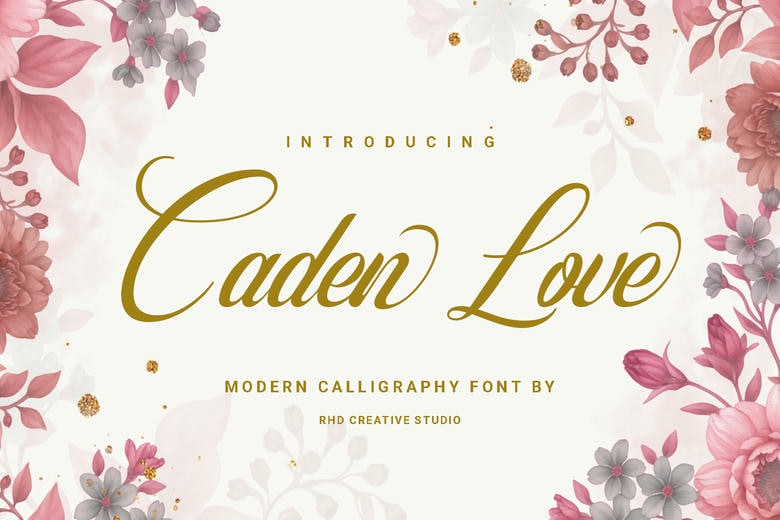
Caden Love Font
Caden Love is a contemporary calligraphy font which is incorporated with grace and expressive artistry. It has a flowing script style with elegant curves, high contrast lines and smooth thin-thick transitions giving it a romantic and sophisticated effect. Its sweeping up and down ascenders and descenders that, to an extent,
provide it with a luxurious hand-lettered look and the elaborate swashes and alternate characters ensure versatility in decorative applications. Great in wedding invitations, branding and high-end packaging, it has a classic feel with a modern feel and makes the text appear personal and elegant.
Caden Love Calligraphy Script Font